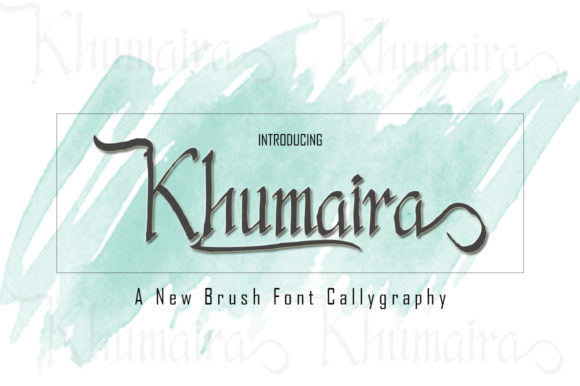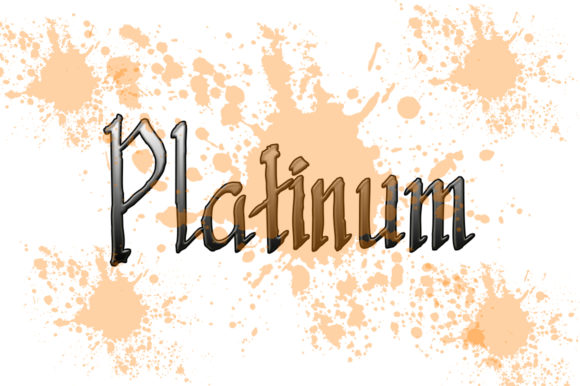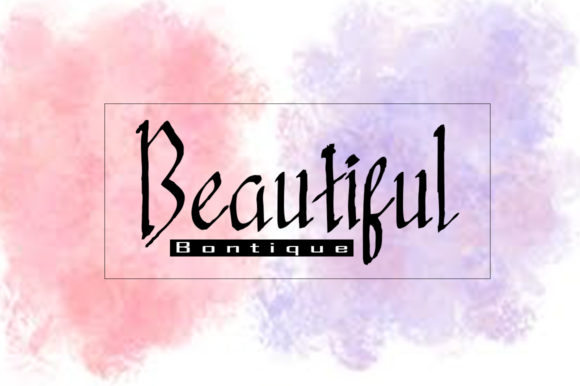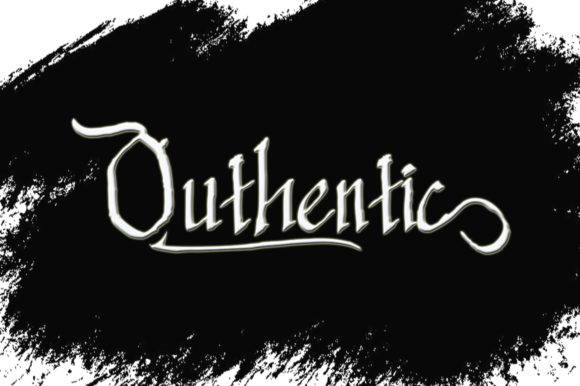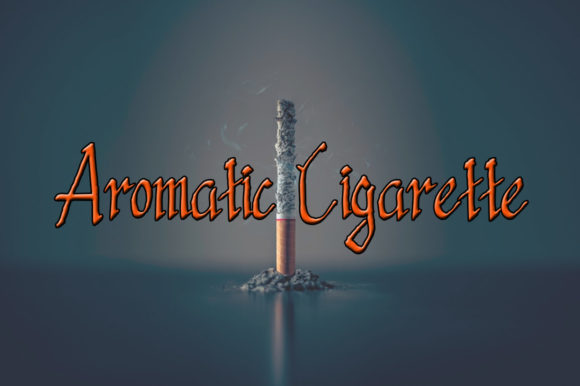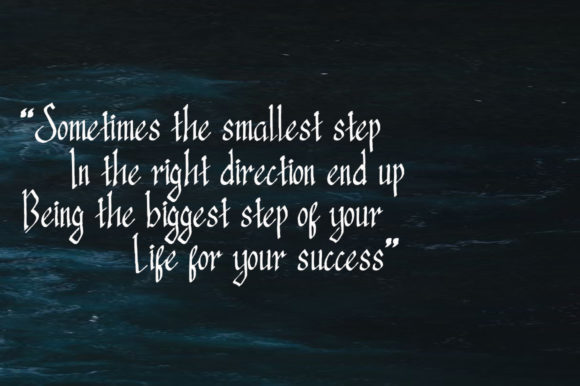
Khumaira Font
About Khumaira Font
Inspired by classic calligraphy, Khumaira is a stunning script. Get inspired by its bold charm, and turn any design project into a stunner!